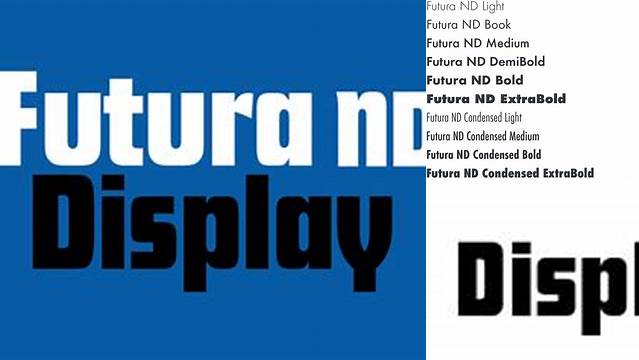
What is Futura ND Display?
So, what's the big deal about Futura ND Display? Futura ND Display is a geometric sans-serif typeface designed with clean lines and a modern aesthetic. It's perfect for headlines, posters, and any design that needs a touch of elegance. Its clarity and legibility make it a favorite among designers worldwide. The font exudes a sense of forward-thinking and simplicity, making it ideal for brands that want to project a contemporary image. Whether you're working on a website, a branding project, or even just a personal design, Futura ND Display can elevate your work to the next level. It has a timeless quality that ensures it remains relevant and stylish, regardless of current design trends. The attention to detail in its creation is evident, with each character carefully crafted to maintain consistency and balance. This makes it a versatile choice for various applications, from digital displays to print materials. The overall impression it gives is one of understated sophistication, making it a go-to font for those seeking a blend of functionality and aesthetic appeal. Trust me, once you start using it, you'll see the difference it makes!
Why Choose Futura ND Display?
Choosing the right font can be a game-changer, and Futura ND Display brings a lot to the table. Its geometric design gives it a modern, clean look that works wonders for grabbing attention. Think about it – a font that’s easy on the eyes and makes your message pop? That’s Futura ND Display for you! Plus, it's super versatile. You can use it for everything from website headers to print ads. And because it’s a sans-serif font, it’s incredibly readable, even at smaller sizes. This is a huge plus when you’re designing for different platforms and devices. Whether it’s a mobile screen or a billboard, Futura ND Display ensures your message comes across loud and clear. It’s also a fantastic choice for branding. A consistent font can help build brand recognition, and Futura ND Display’s distinctive look can set you apart from the competition. It's not just about looking good; it’s about making an impact and leaving a lasting impression. And let's be real, who doesn’t want their designs to look professional and polished? With Futura ND Display, you’re not just choosing a font; you’re choosing a visual identity that speaks volumes. So go ahead, give it a try, and watch your designs transform!
Tips for Using Futura ND Display Effectively
So, you've got Futura ND Display installed and you're ready to rock. But how do you use it effectively? Here are a few tips to help you make the most of this awesome font. First, consider its strengths. Futura ND Display is a geometric sans-serif, which means it's clean, modern, and highly readable. It's great for headlines, logos, and branding materials. But it can also work well for body text, especially if you choose a slightly larger font size and increase the line spacing. Experiment with different weights and styles to find the perfect balance for your design. Bold weights are great for making a statement, while lighter weights can create a more subtle and elegant look. Also, pay attention to kerning and tracking. These settings adjust the spacing between letters and can have a big impact on readability. Futura ND Display is a versatile font, but it's important to use it thoughtfully and intentionally. Don't just slap it on everything and hope for the best. Instead, think about how it complements your overall design and how it communicates your message. And finally, don't be afraid to experiment! Try pairing it with different fonts, colors, and layouts to see what works best. The key is to have fun and let your creativity shine!
Futura ND Display for Branding
When it comes to branding, Futura ND Display can be a real game-changer. Its clean, modern lines project a sense of sophistication and professionalism, making it perfect for businesses that want to convey a forward-thinking image. Think about some of the biggest brands in the world – many of them use geometric sans-serif fonts in their logos and marketing materials. This is because these fonts are timeless and versatile, and they can work well across a wide range of industries. Futura ND Display is no exception. It's great for logos, websites, business cards, and any other branding materials you can think of. But the key is to use it consistently. Choose a specific weight and style and stick with it across all your branding efforts. This will help create a cohesive and recognizable brand identity. Also, consider the colors you use with Futura ND Display. Pair it with bold, vibrant colors to create a modern and energetic look, or use it with muted, neutral tones for a more classic and sophisticated feel. And don't forget about typography. Experiment with different sizes, spacing, and alignment to find the perfect balance for your brand. With a little bit of creativity, you can use Futura ND Display to create a brand that is both visually appealing and highly effective.
Futura ND Display in Web Design
In the world of web design, Futura ND Display can be a powerful tool. Its clean, geometric design makes it highly readable on screens of all sizes, which is crucial for creating a user-friendly website. Whether you're designing a blog, an e-commerce site, or a corporate website, Futura ND Display can help you create a professional and engaging experience. Use it for headlines to grab attention and create a strong visual hierarchy. Use it for body text to ensure readability and clarity. And use it for buttons and navigation menus to create a cohesive and intuitive interface. But remember, less is more. Don't overuse Futura ND Display, or it can start to look cluttered and overwhelming. Instead, use it strategically to highlight key elements and create a sense of balance. Also, consider the font size and line height. These settings can have a big impact on readability, especially on mobile devices. Experiment with different combinations to find the perfect balance for your website. And finally, don't forget to optimize your fonts for the web. Use a font hosting service like Google Fonts or Adobe Fonts to ensure that your fonts load quickly and efficiently. With a little bit of planning, you can use Futura ND Display to create a website that is both beautiful and functional.
Futura ND Display: How It Compares to Other Popular Fonts
Futura ND Display holds its own against other popular fonts due to its unique qualities. Compared to Helvetica, Futura has a more geometric design, giving it a different feel. Arial is often seen as a more generic substitute, lacking Futura's distinctiveness. While Times New Roman is a classic serif font, Futura provides a clean, sans-serif alternative. Each font serves different purposes based on the project's style and intent, but Futura brings modern simplicity to the table.